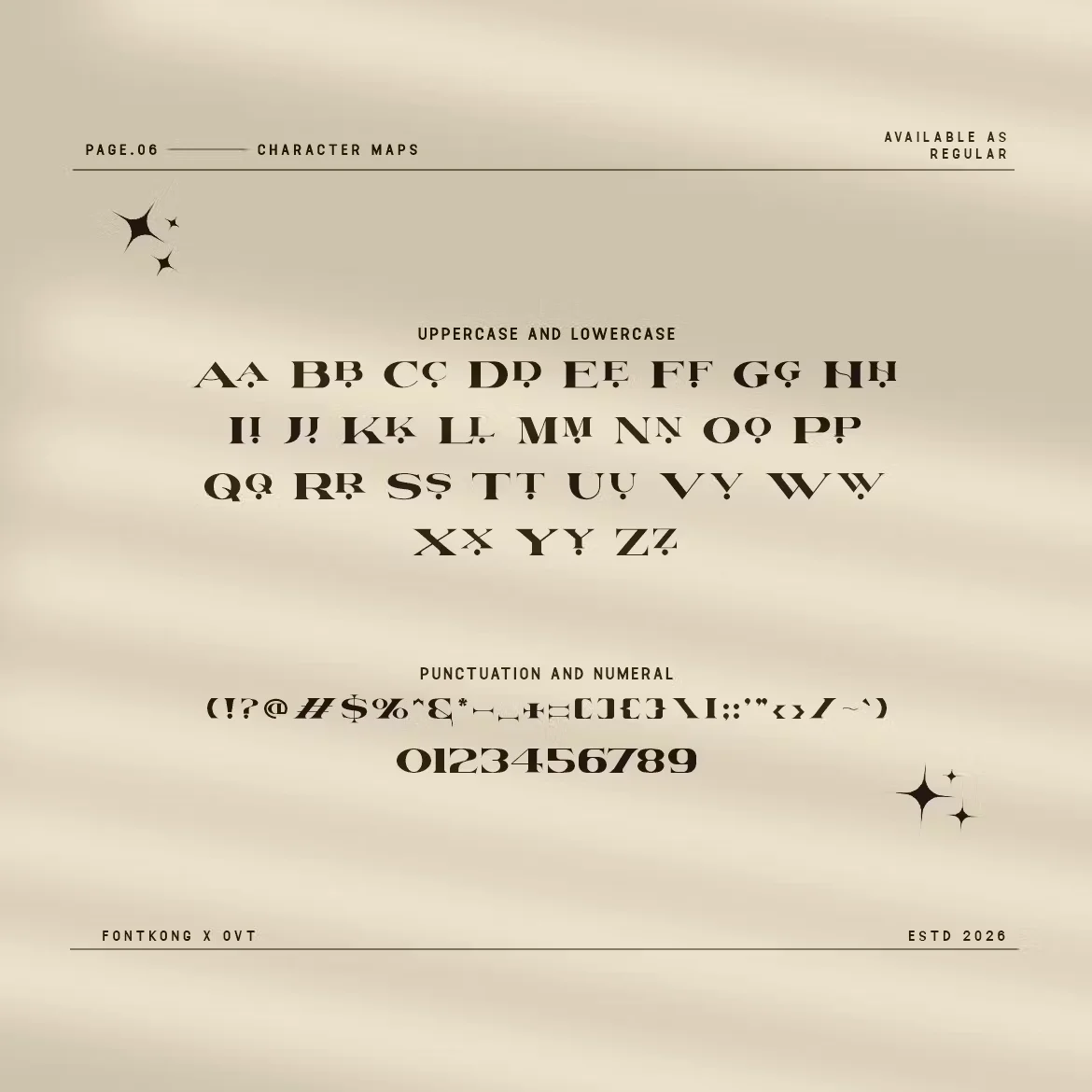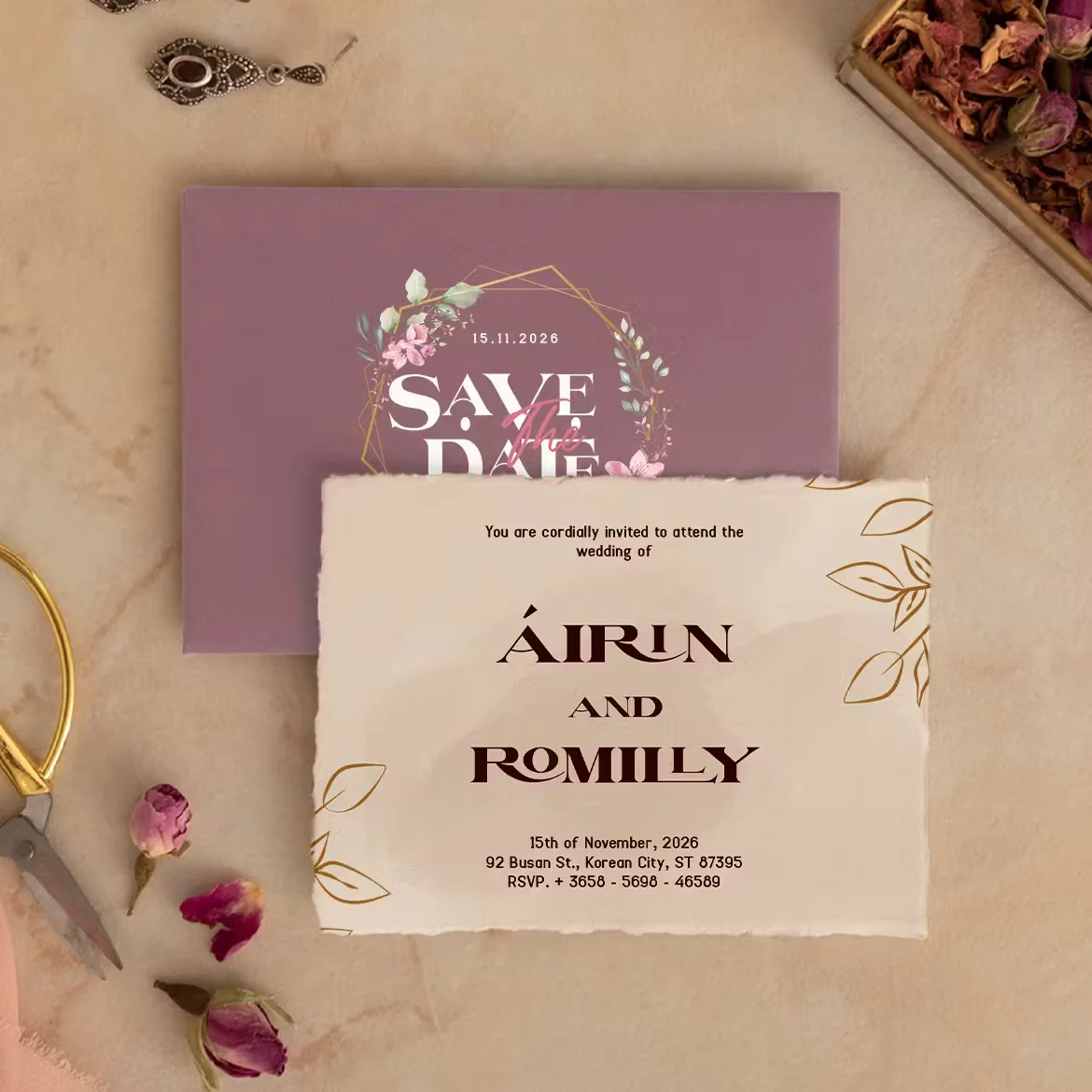
Neith Font supports designers who need a serif typeface that improves readability in branding, print layouts, and event invitations. Its structured letterforms help maintain consistency across headings, logos, and long paragraphs where clear serif detailing matters.
Neith Font is a classic serif typeface with balanced contrast between thick and thin strokes. The shapes feature straight stems, sharp serifs, and controlled curves that create a stable reading pattern. Depending on the release, the font may include standard weights and stylistic sets that help build a clear typographic hierarchy in print or web design. Its formal tone fits projects that require dependable, traditional lettering.
Use Neith Font for brand identities, editorial layouts, certificates, wedding invitations, and website headings. Pair it with a clean sans-serif for body copy or digital interfaces to keep contrast strong. Its serif structure remains readable at small sizes, making it suitable for printed text.